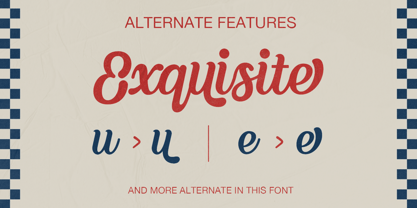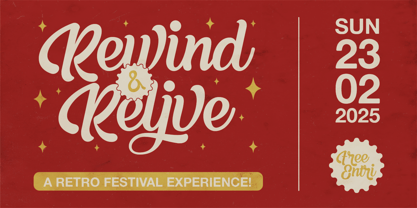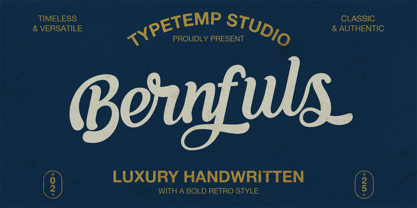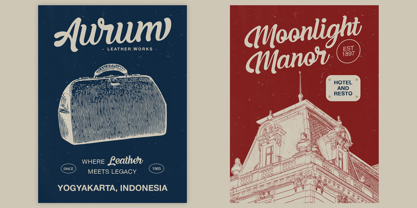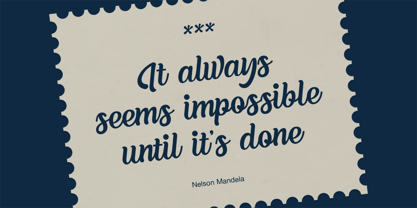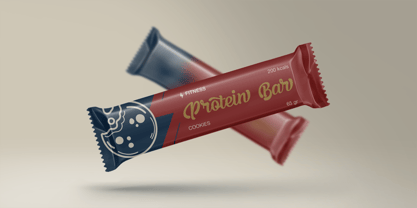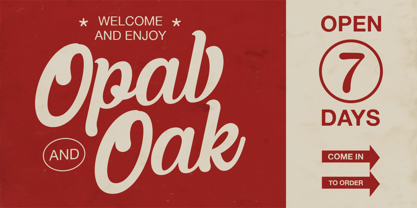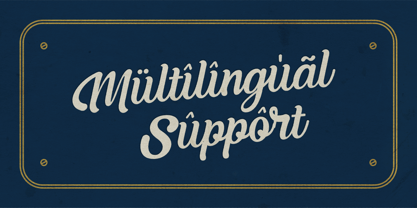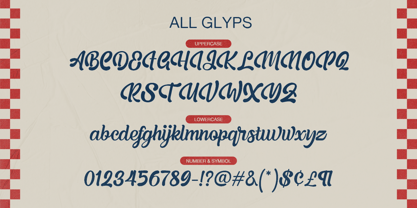
Bernfuls Script
by Typetemp Studio
The Bernfuls Script Font Family was designed by Haris Purnama Putra, Egi Ahmad Mufid and published by Typetemp Studio. Bernfuls Script contains 1 styles. More about this family
Bernfuls Script Font is a stylish font It has both modern and vintage look. Comes with alternatives and ligatures, helps to create stunning logos, quotes, posts, blog posts. branding projects, magazine imagery, wedding invitations, and much more.
Designers: Haris Purnama Putra, Egi Ahmad Mufid
Foundry: Typetemp Studio